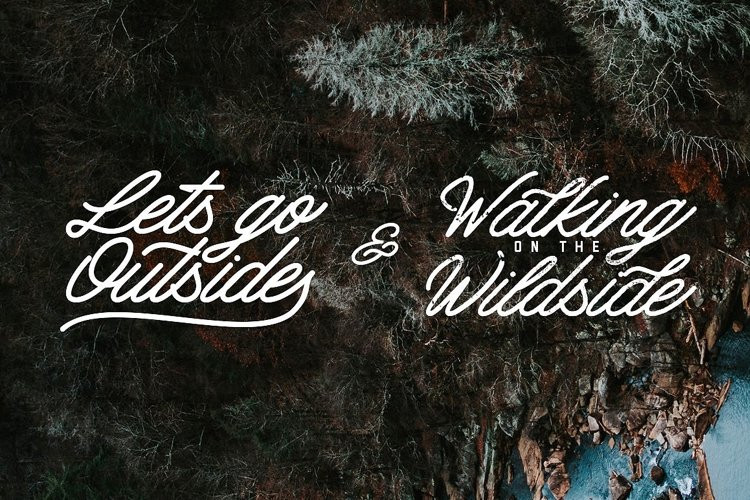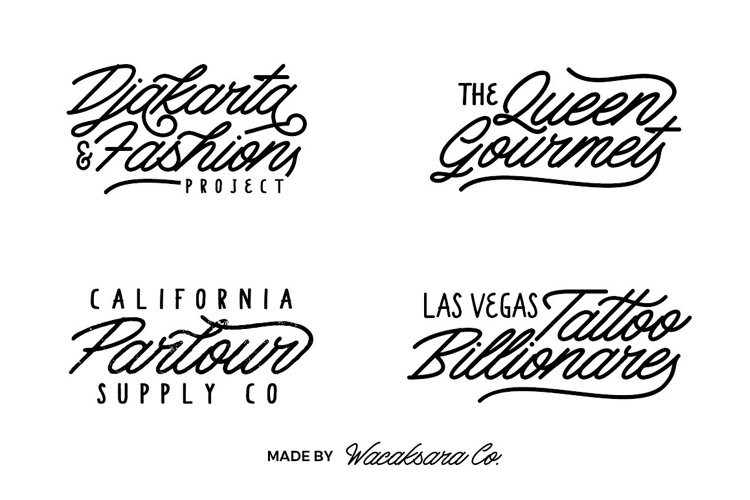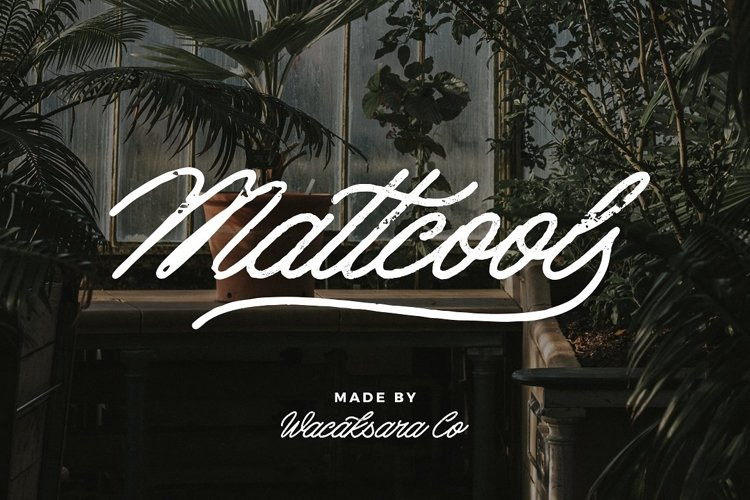
Mattcool Font
Mattcool FontIntroducing Mattcool! A vintage styles monoline font with a natural flow. It’s the perfect choice for personal branding projects, handwritten quotes, homeware designs, product packaging or simply as a modern & stylish text overlay to any background image.Mattcool is available in three styles script Regular, Bold, and Rough and two styles on Sans.
Mattcool also comes with uppercase, lowercase, numerals, punctuations in the script and sans version and so many variations on each character include OpenType alternates, common ligatures and also additional swash to let you customize your designs.